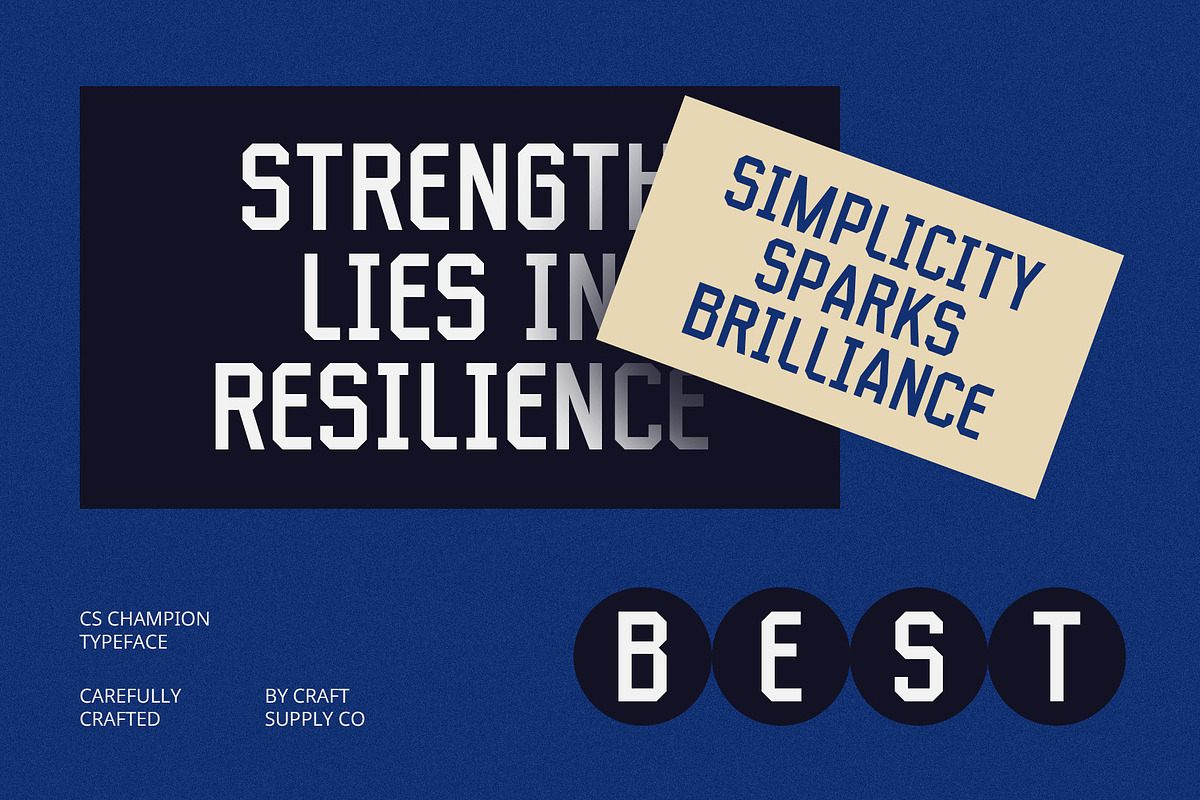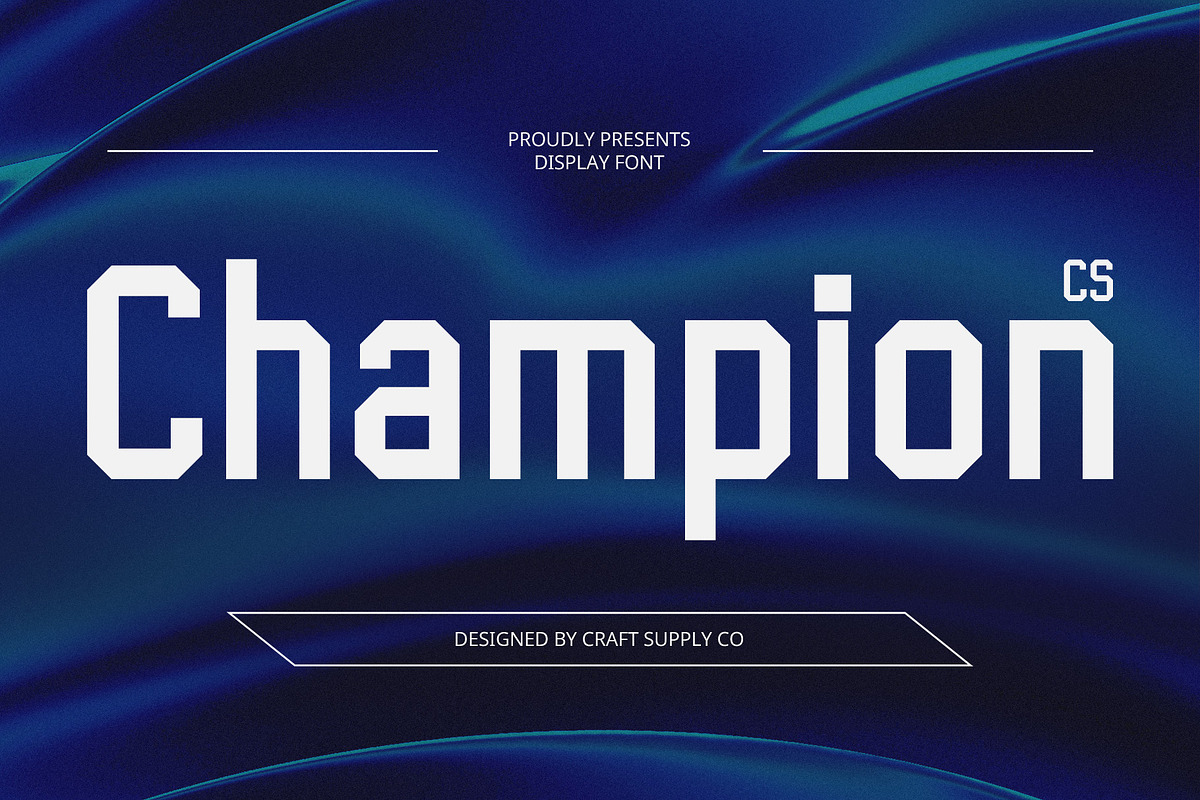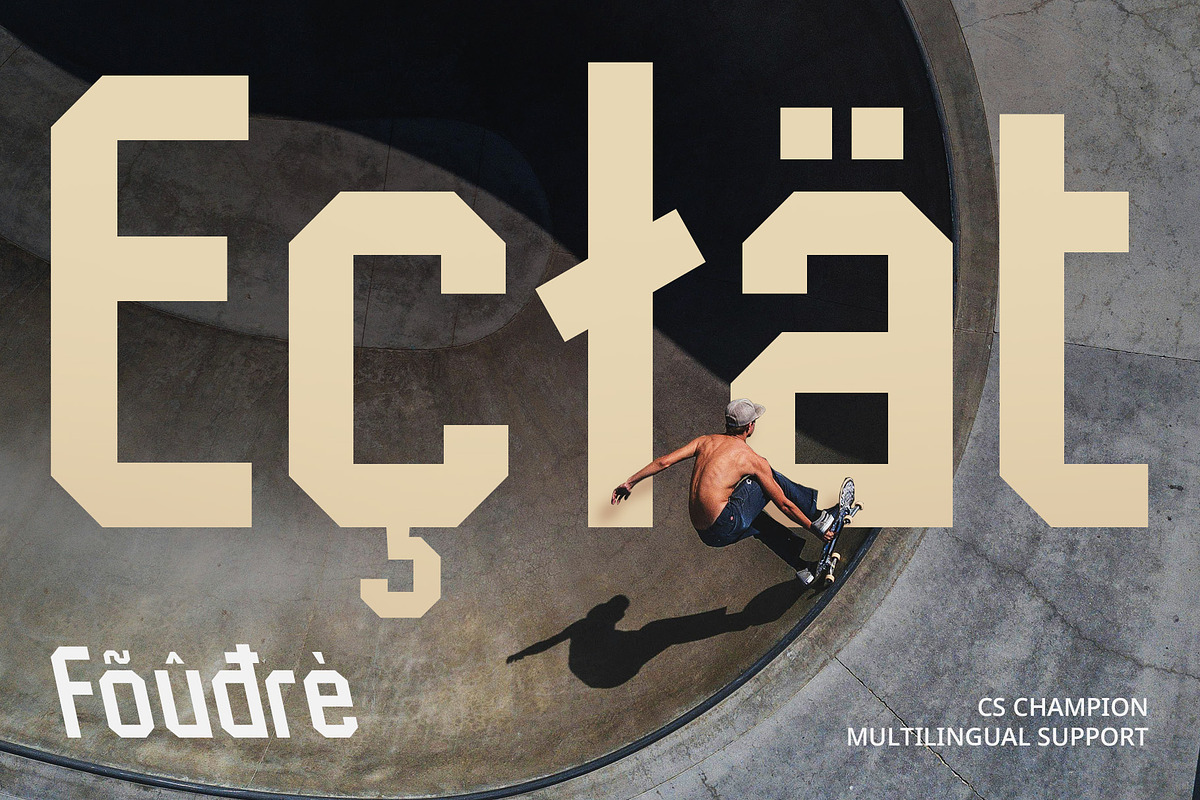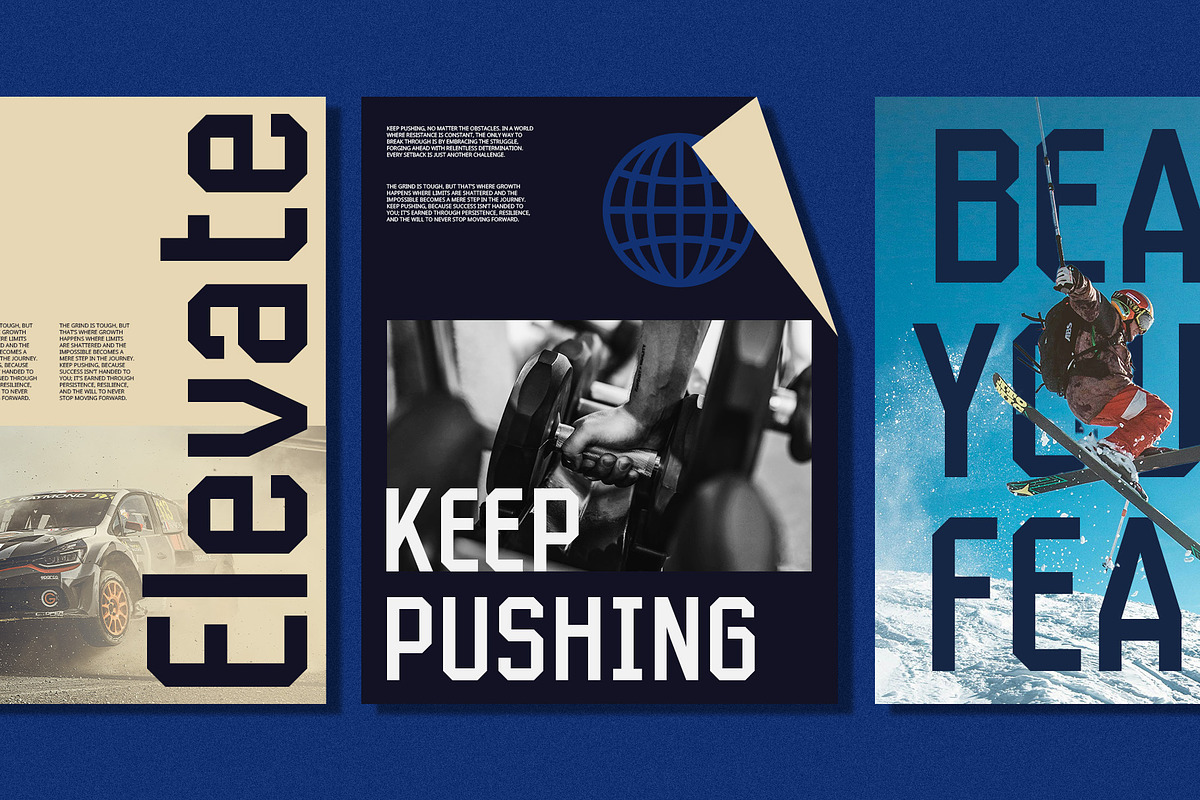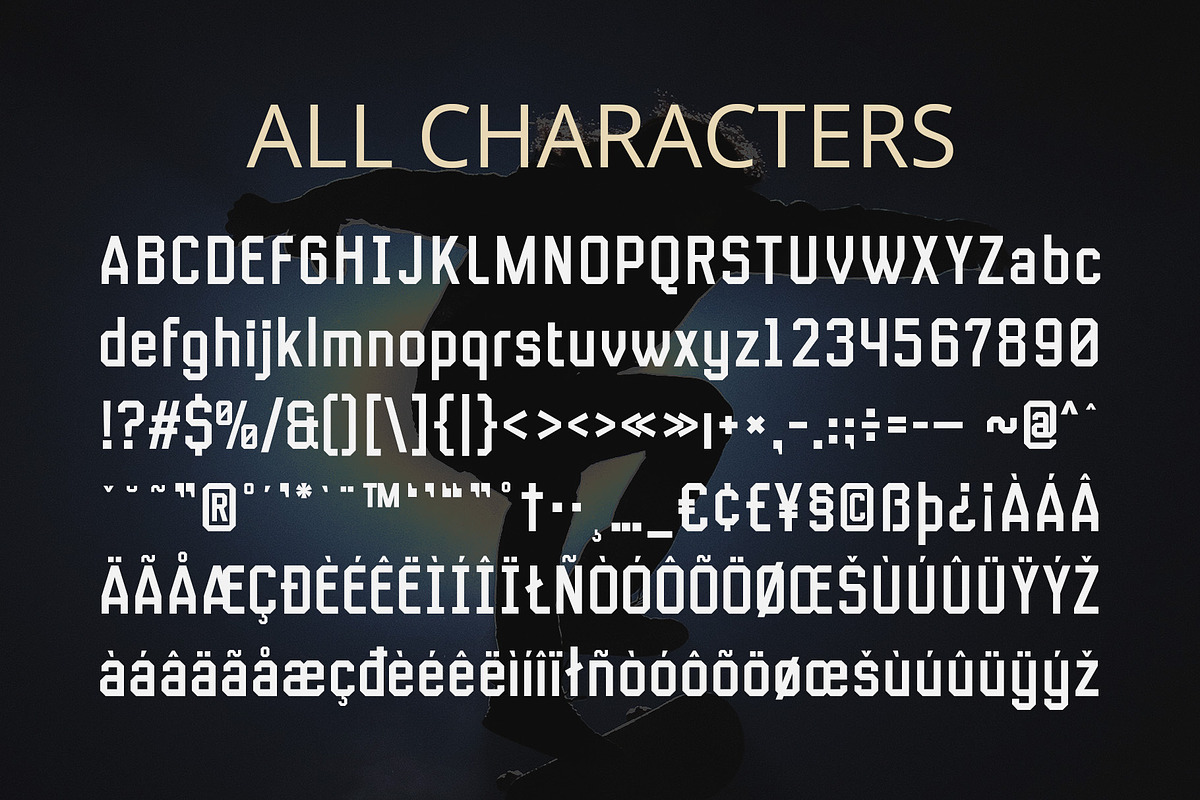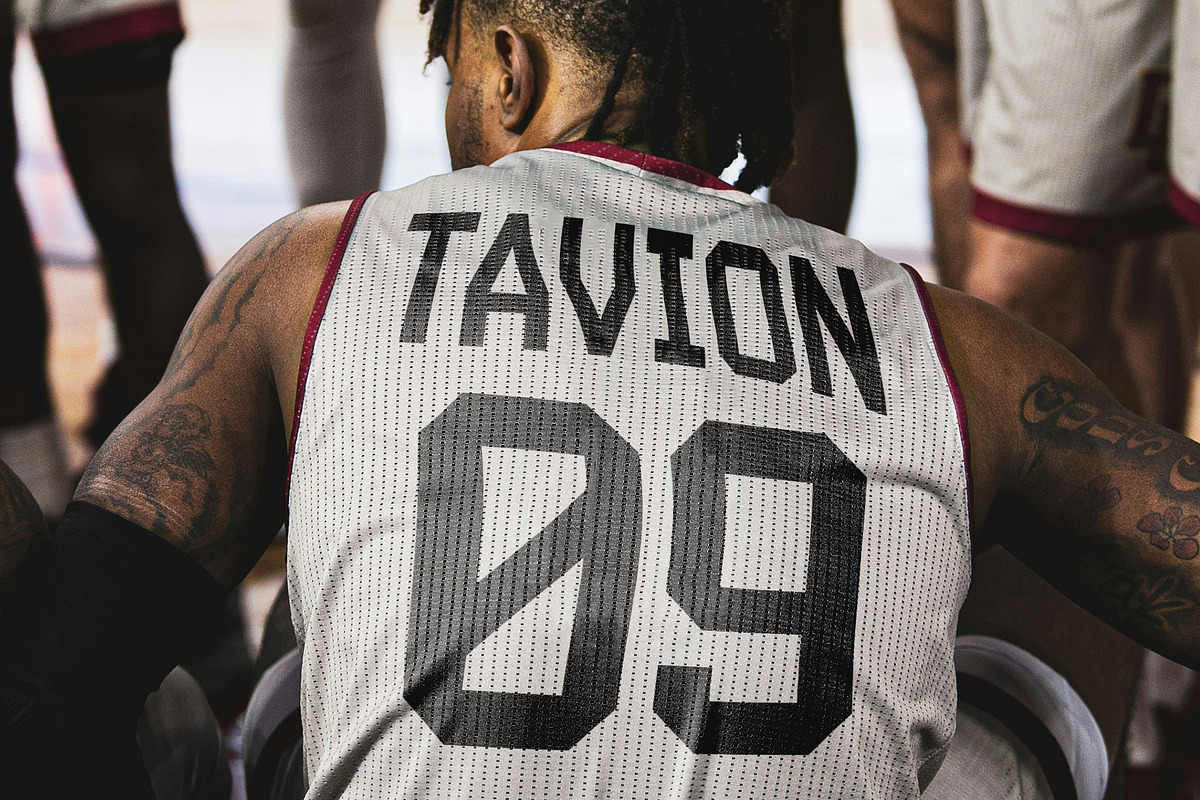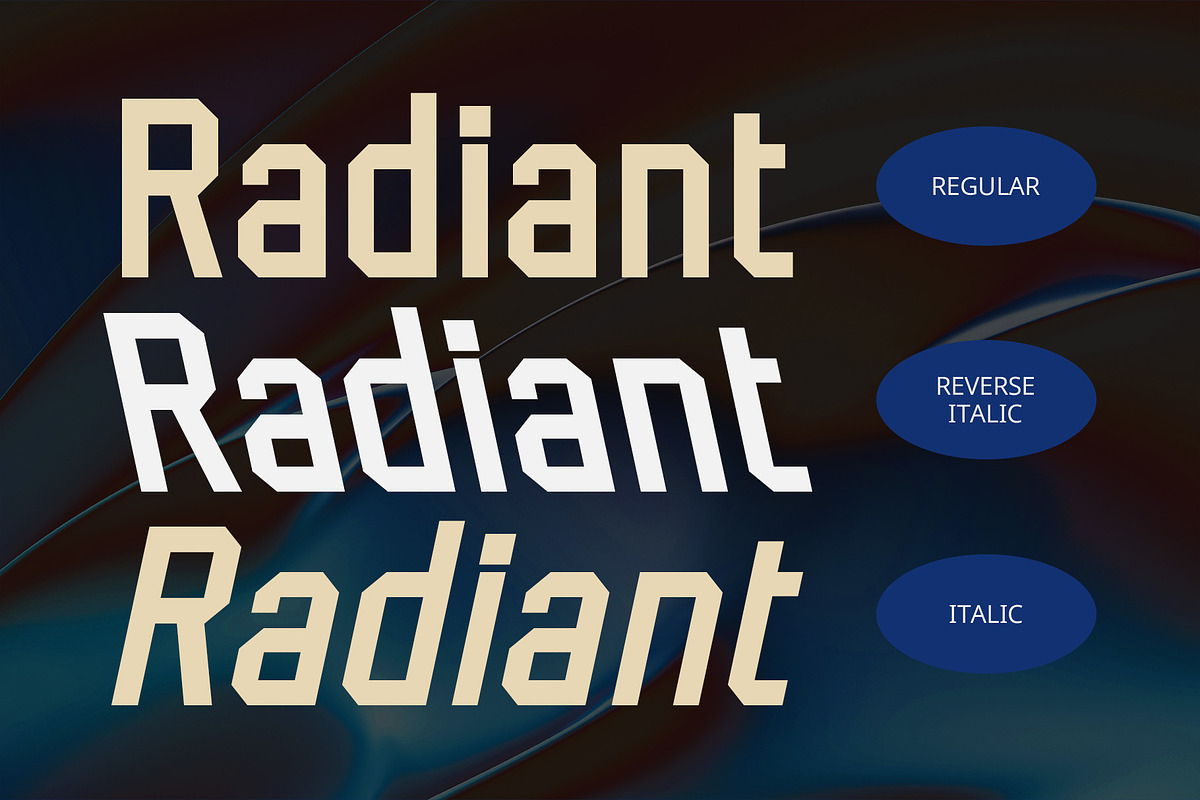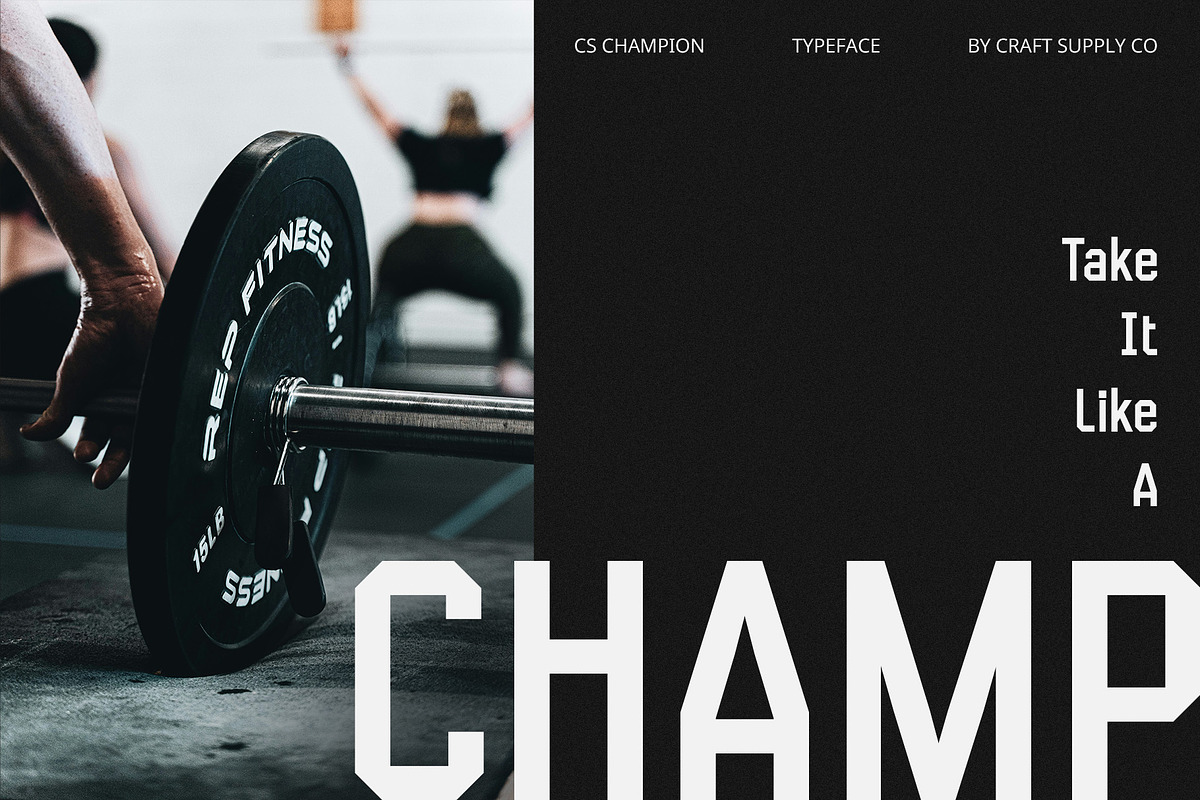
CS Champion – Sporty Font
CS Champion Font: Bold, Sporty, and Dynamic Typography
Energetic, Sporty Style CS Champion is a modern sans-serif display font that embodies the spirit of sports with its bold and dynamic design. Characterized by thick, powerful lines and slightly angled edges, this font radiates energy, speed, and strength. The design captures the essence of athleticism, making it perfect for any project that requires a high-impact, action-oriented vibe.
Strength and Vitality The thick strokes and clear, defined shapes of CS Champion make a striking impression. With letterforms that are designed to grab attention, this font exudes vitality and endurance. Its bold structure evokes power and confidence, delivering a visual presence that is as strong as the message it conveys.
Ideal for Sports and Fitness Designs Perfectly suited for sports team branding, sports product promotions, or fitness-related projects, CS Champion is designed to evoke motion and intensity. Whether you’re creating logos, posters, or event materials, this font delivers an energetic aesthetic that resonates with fans and athletes alike.
Action-Packed Appeal With its solid, unyielding design, CS Champion brings an action-packed feel to your projects. It’s ideal for designs that require a bold, athletic appearance, perfect for creating standout headlines, competitive branding, and advertisements that demand attention.
- CS Champion Regular
- CS Champion Italic
- CS Champion Reverse Italic